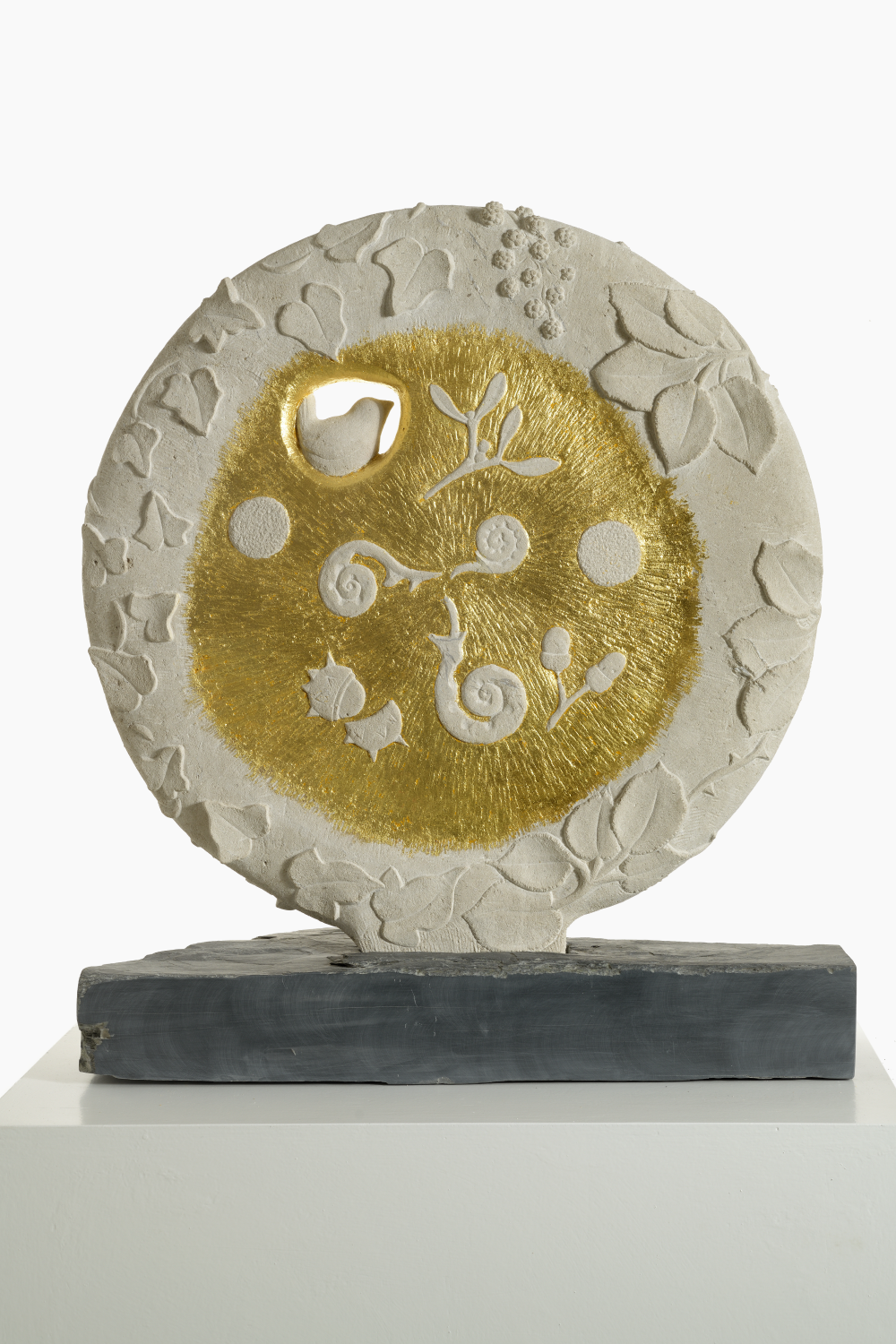
Nature Sculpture by Lottie O'Leary
This carving in Portland stone by Lottie O’Leary, celebrates several of the ‘Lost Words’ and was created as part of our exhibition ‘The Lost Words - Forget-me-not.’ For this exhibition artists have created a permanent record of the natural words removed from the Oxford Junior Dictionary. Size: 76 x 63cm